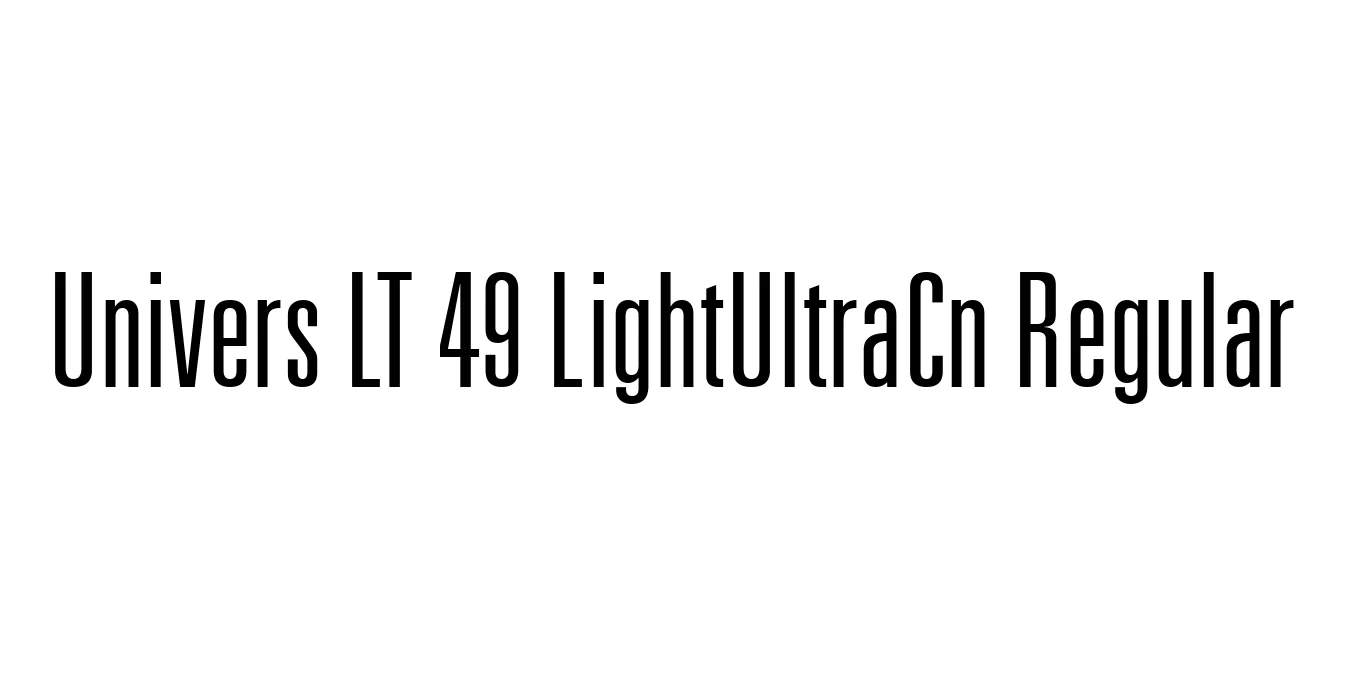
Univers LT 49 LightUltraCn Regular
Designed by Adrian Frutiger
| Font Name | Univers LT 49 LightUltraCn |
| Category | Sans-serif |
| Designer | Adrian Frutiger |
| Similar Fonts | Helvetica, Akzidenz-Grotesk, Folio, Neue Haas Grotesk |
Univers LT 49 LightUltraCn Regular is a cornerstone of modernist typography, conceived by the legendary Swiss designer Adrian Frutiger in 1954 and released in 1957. Unlike previous typeface families that were developed haphazardly, Univers was designed as a comprehensive, systematic family from its inception. The '49' designation belongs to the unique numbering system created by Frutiger, where the first digit (4) represents the weight and the second digit (9) indicates the ultra-condensed width, ensuring a logical relationship between all variants in the family.
The Light Ultra Condensed version is particularly notable for its extreme verticality and elegant, thin strokes. It embodies the principles of the International Typographic Style (Swiss Style), focusing on objectivity, legibility, and a neutral aesthetic. This specific weight is highly sought after by designers who need to maximize space without sacrificing the sophisticated, clean lines that have made the Univers family a global standard for corporate and editorial identity for over six decades.
Univers LT 49 LightUltraCn Regular Best Uses
Perfect for narrow columns, magazine sidebars, and sophisticated pull quotes.
Ideal for creating high-impact, vertically oriented typographic layouts.
Suitable for technical branding where space efficiency and modernism are key.
Often used in architectural drawings and signage for its clean, precise aesthetic.